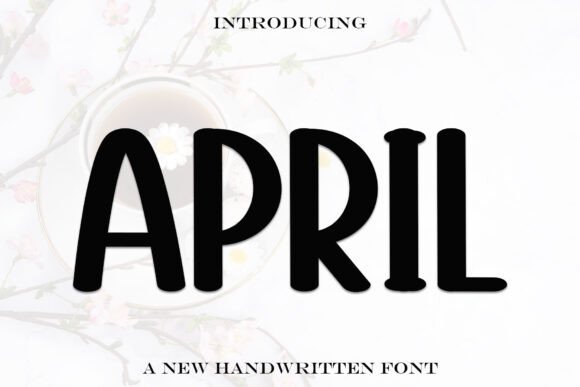
The April Font: A Playful Powerhouse for Creative Projects
I’ll never forget the time I was working on a children’s book design project, and I just couldn’t find the right font to bring the story to life. The client wanted something fun, expressive, and engaging, but not too over-the-top. I scoured font libraries, but nothing seemed quite right. That was until I stumbled upon the April Font. With its bold, rounded letters and friendly personality, it was the perfect fit. In this article, I’ll share my experience with this fantastic font, its features, and how to make the most of it in your creative projects.
An Honest Review of April Font
- ✨ Playful energy: April Font has a unique ability to add a dash of fun to any design project.
- ✅ Versatility: It works beautifully for both print and digital designs, from eye-catching headlines to kids’ themed projects, packaging, and branding.
- 💬 Excellent legibility: Even at smaller sizes, the font remains clear and easy to read.
- 🎨 Customization options: With OpenType features and glyphs, you can experiment with different styles and alternates to match your project’s tone.
While April Font is an excellent choice for many projects, there are a few things to keep in mind:
- 🤔 Limited use for formal projects: Due to its playful nature, April Font might not be the best fit for more formal or professional designs.
- ⚠️ Some letters may require adjustment: In certain words or phrases, you might need to tweak letter spacing for optimal results.
The Story Behind April Font
April Font was designed with creativity and playfulness in mind. Its creator aimed to craft a font that would bring a smile to users’ faces while making their designs stand out. Inspired by childhood memories and the joy of creating something new, April Font embodies a carefree spirit that’s hard to resist.
Q: What type of projects is April Font best suited for?
A: April Font excels in kids’ themed projects, educational materials, packaging, branding, and any design that requires a playful touch.
Q: Does April Font support OpenType features?
A: Yes, April Font comes with OpenType features, allowing you to experiment with different styles, alternates, and glyphs.